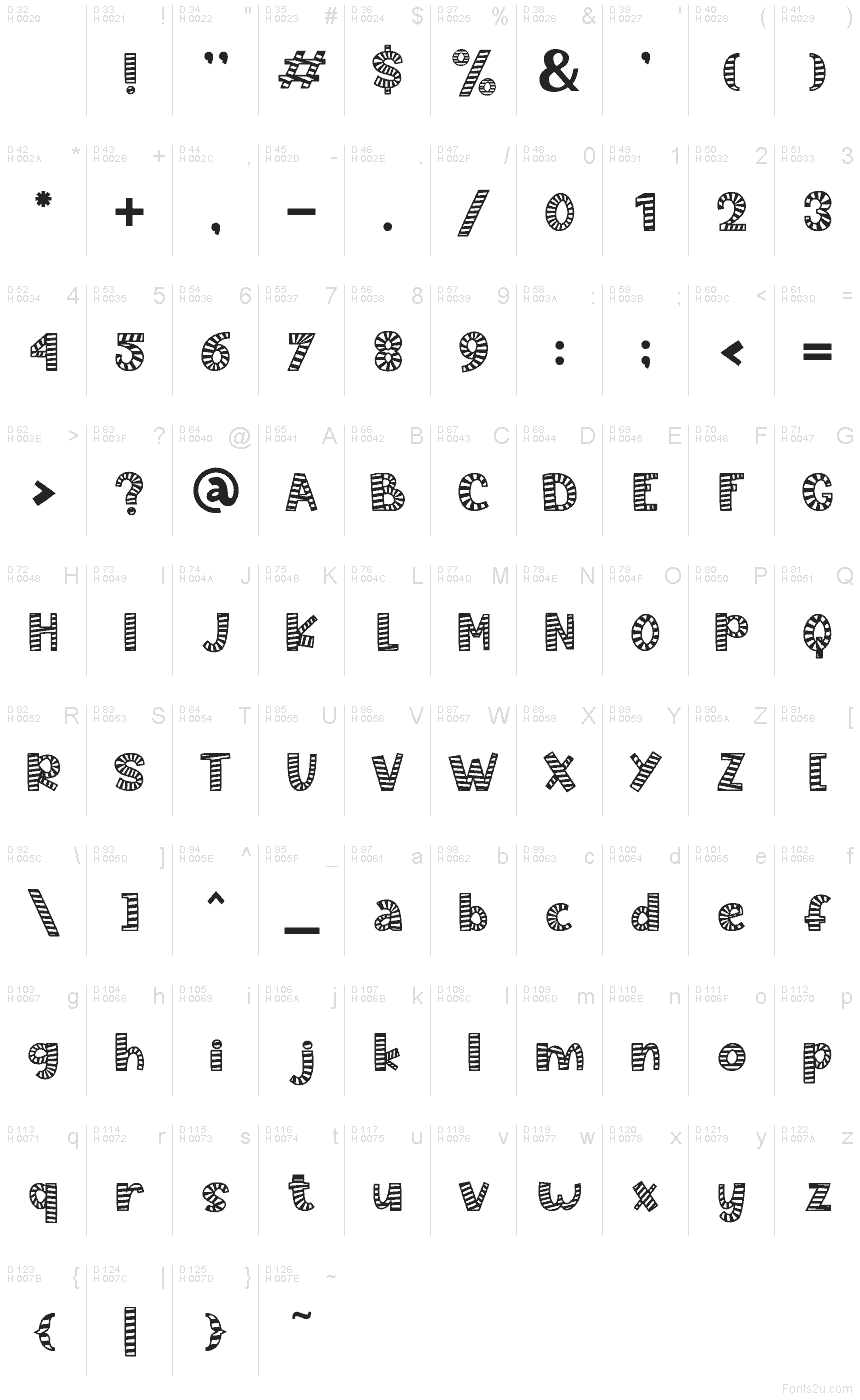
Frosty Faktur Candy
Frosty Faktur Candy font by PutraCetol Studio is a free decorative holiday typeface that turns every word into a striped candy cane. Rounded strokes, playful curves, and alternating bands of white and black give it that sugary, hand-drawn feel—like letters piped in icing across a gingerbread house. The overall rhythm is bouncy and bold, so your message feels cheerful even at a glance.
Using Frosty Faktur Candy, you can bring instant Christmas charm to greeting cards, party invitations, kids’ crafts, classroom posters, product packaging, and social media graphics. This free font shines on large, festive headlines while you keep body text in a clean sans serif for contrast.